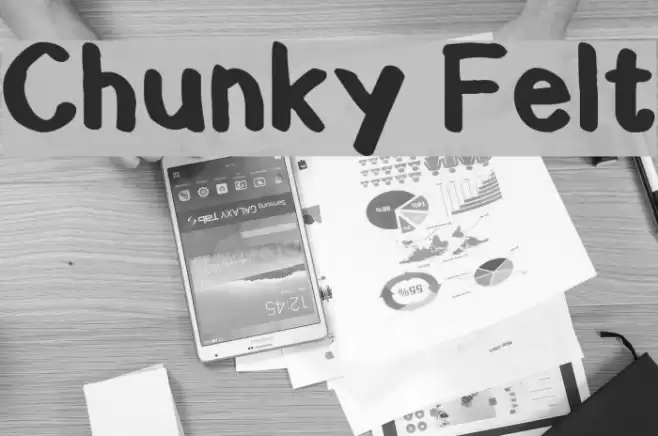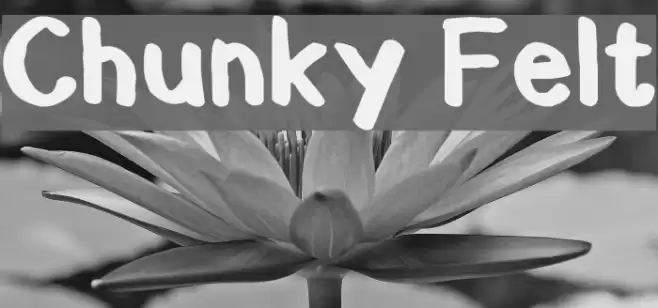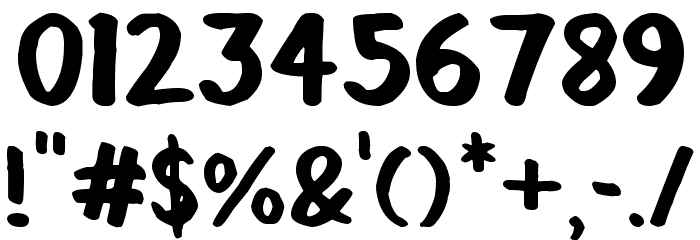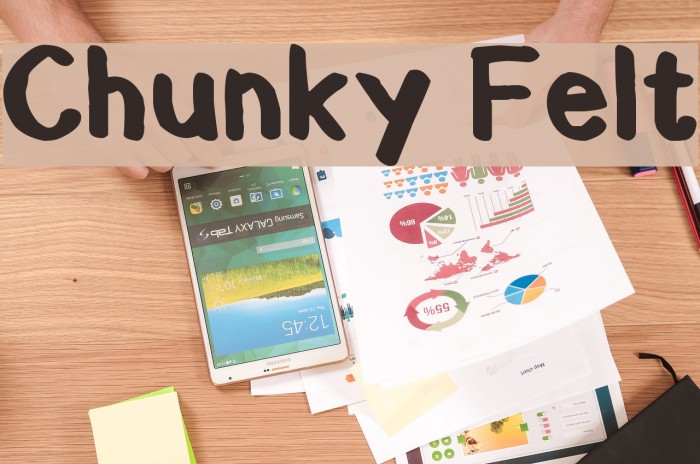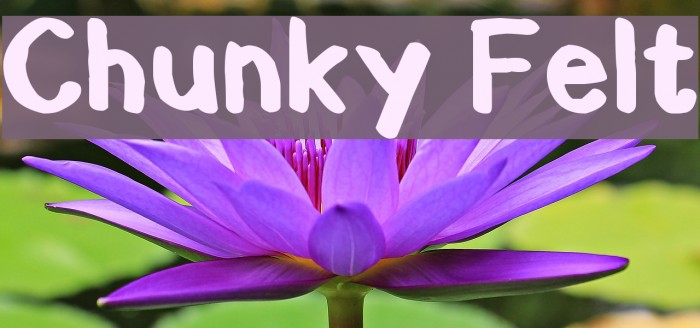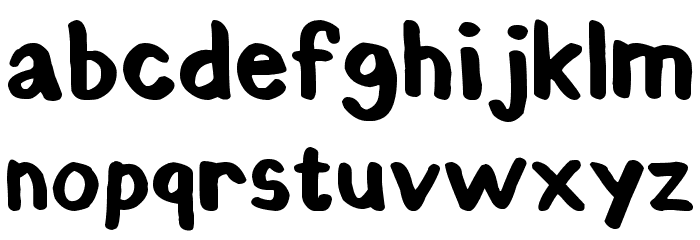
Chunky Felt Font
Chunky Felt Description
This font features a bold and playful style with thick, rounded strokes that give it a friendly and approachable appearance. The characters are slightly irregular, adding a hand-drawn feel that enhances its charm. The uppercase and lowercase letters maintain a consistent weight, contributing to a cohesive look across the typeface. The numbers and special characters are designed with the same chunky aesthetic, ensuring uniformity throughout. Its whimsical nature makes it ideal for projects that require a touch of fun and creativity.
A bold, playful font with thick, rounded strokes and a hand-drawn feel from Uncategorized fonts.
- Proposed Projects: Ideal for children's books, playful branding, posters, and creative invitations.
- Overall Style: Playful, Hand-drawn